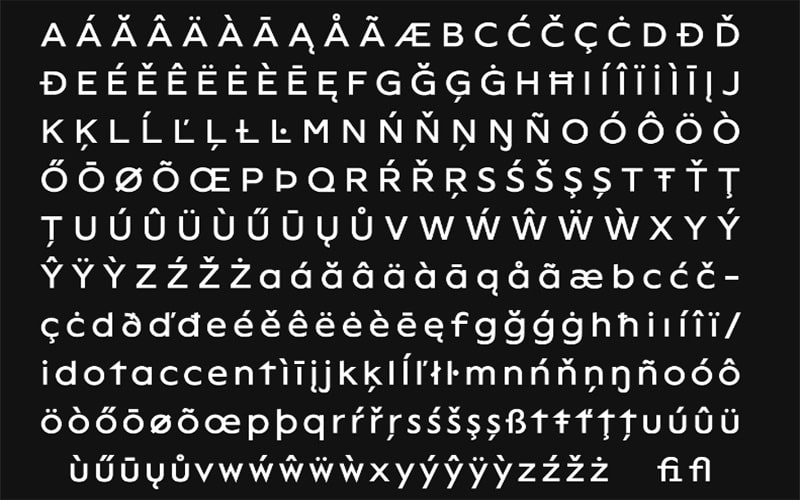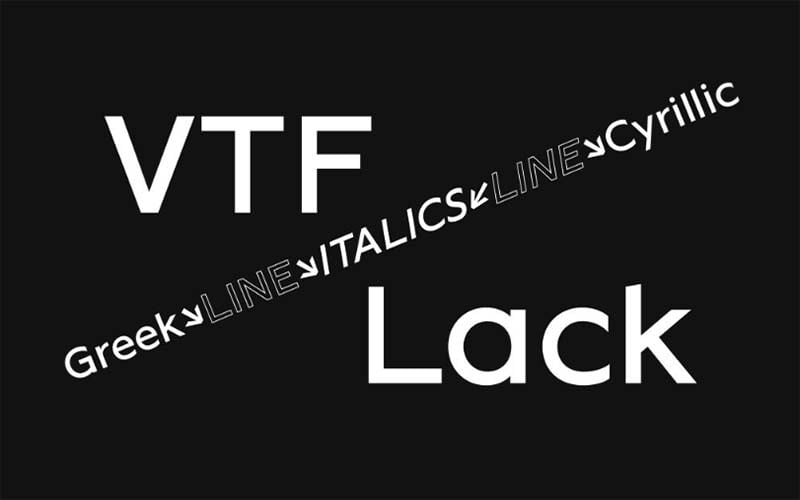
Lack Font is a royalty-free sans serif typeface family that looks beautiful. This font designer Velvetyne took charge of designing it. This allows you to compose in Cyrillic, Greek, and Latin.
The free font can be found in four unique styles including Italic, line italic, regular, and line regular. It is a brave, modern, and experimental typeface and weighs the same as Italic.
Due to its modern appearance, it is ideal for various purposes such as it works well as a display typeface, best for unique text, logos designing, bending names, fashion designing, display screens, and much more.
The best use of this great font works well for web development, web designing, and gaming display screens. So we can say that it is a great choice for every kind of text large and small sizes.
It has a beautiful typeface that can be easily adjusted with other basic font families. Because it has almost the same structure as them in a case that makes a great combo.
With all these features, all standard characters, and all multiple language support it has a great font with these fine qualities. Based on this, many designers use this modern font in their regular projects.